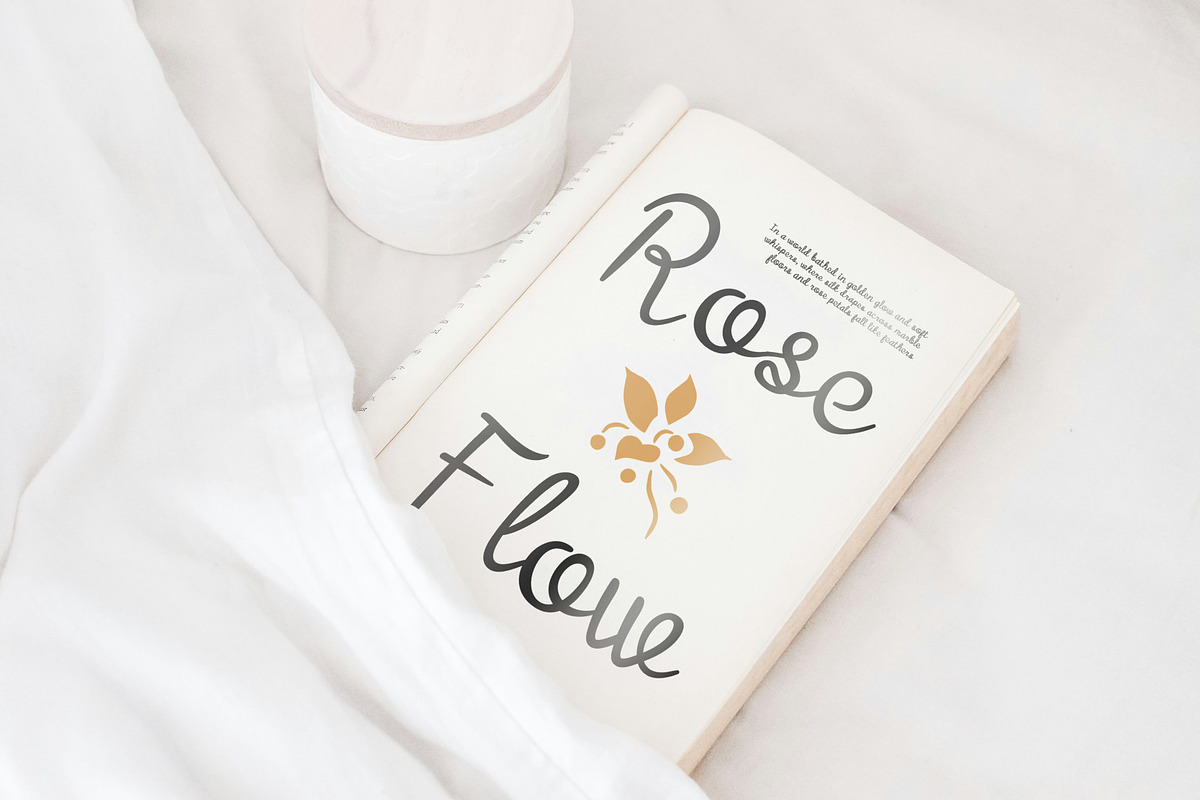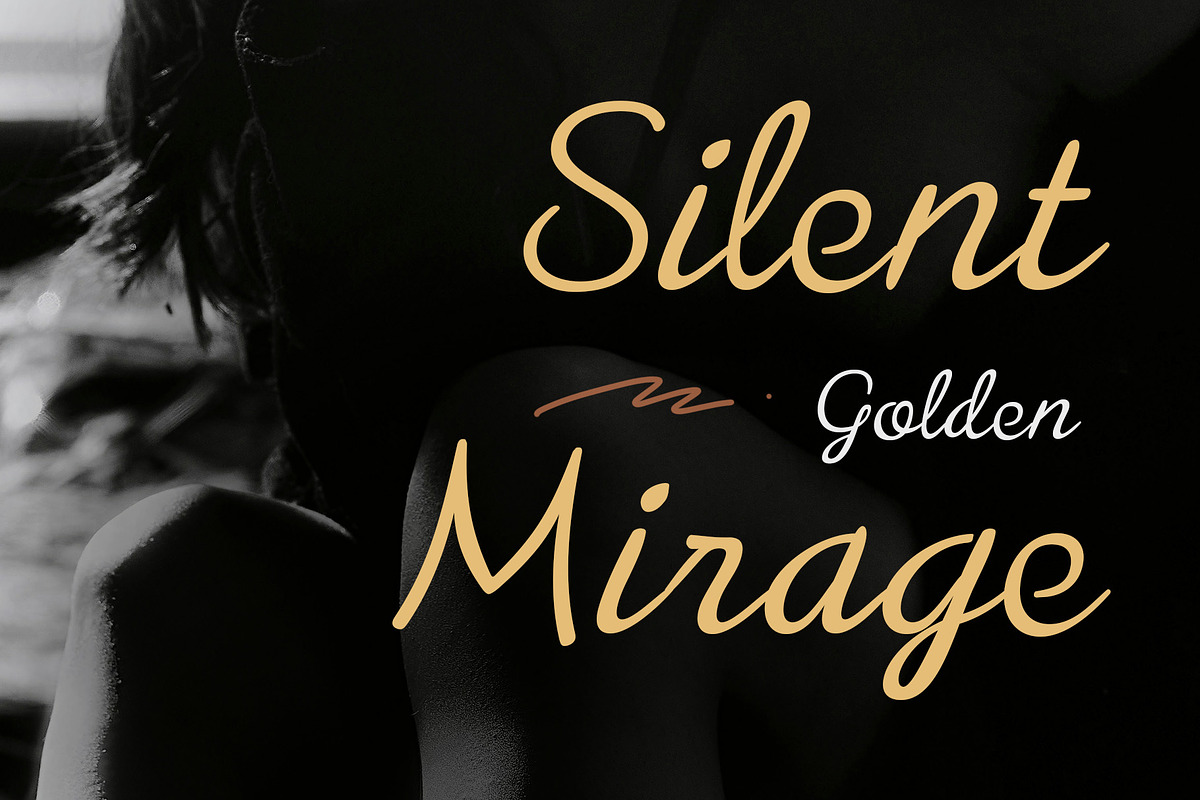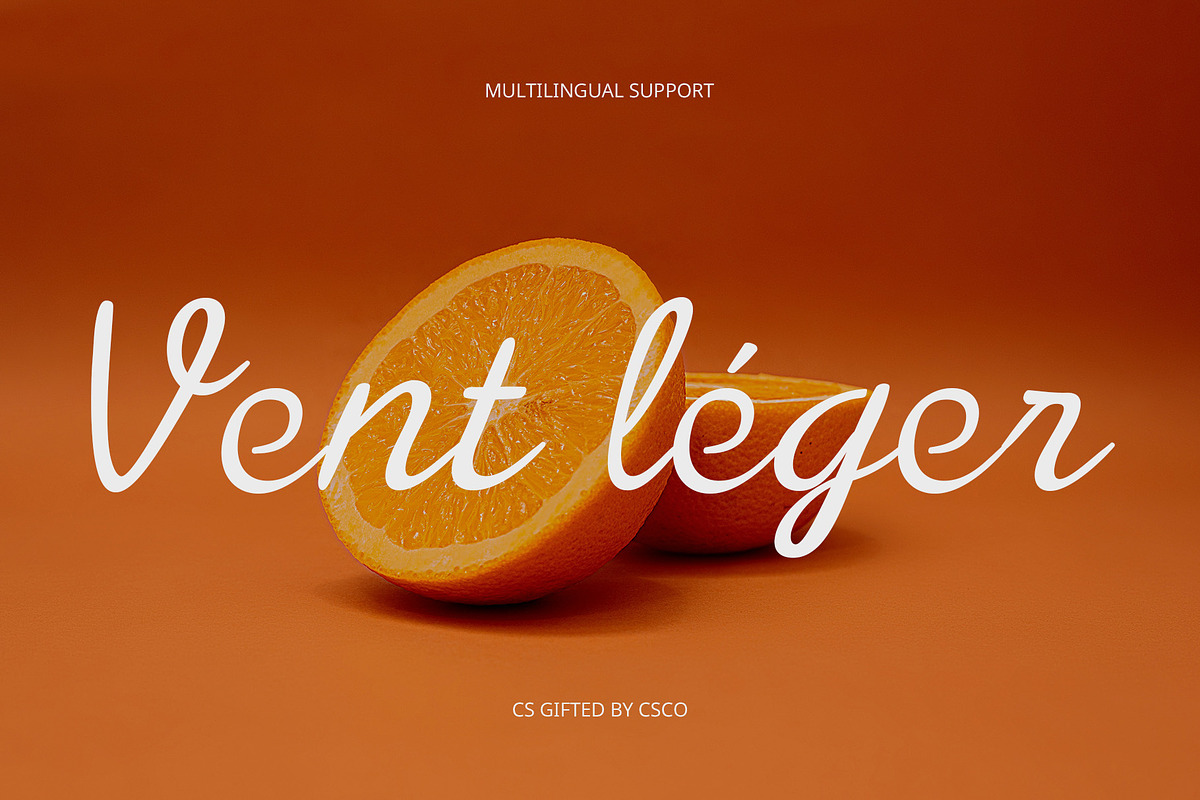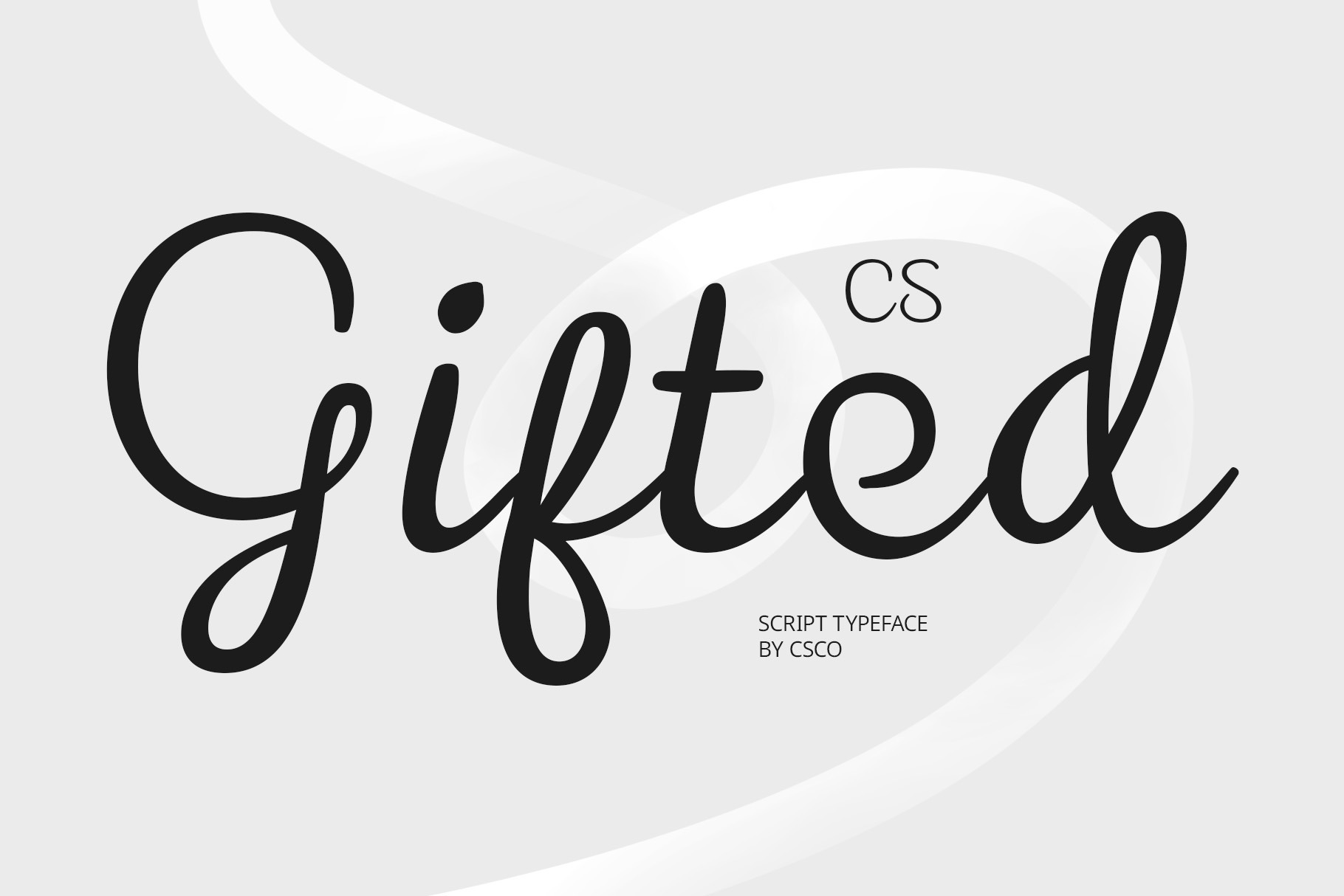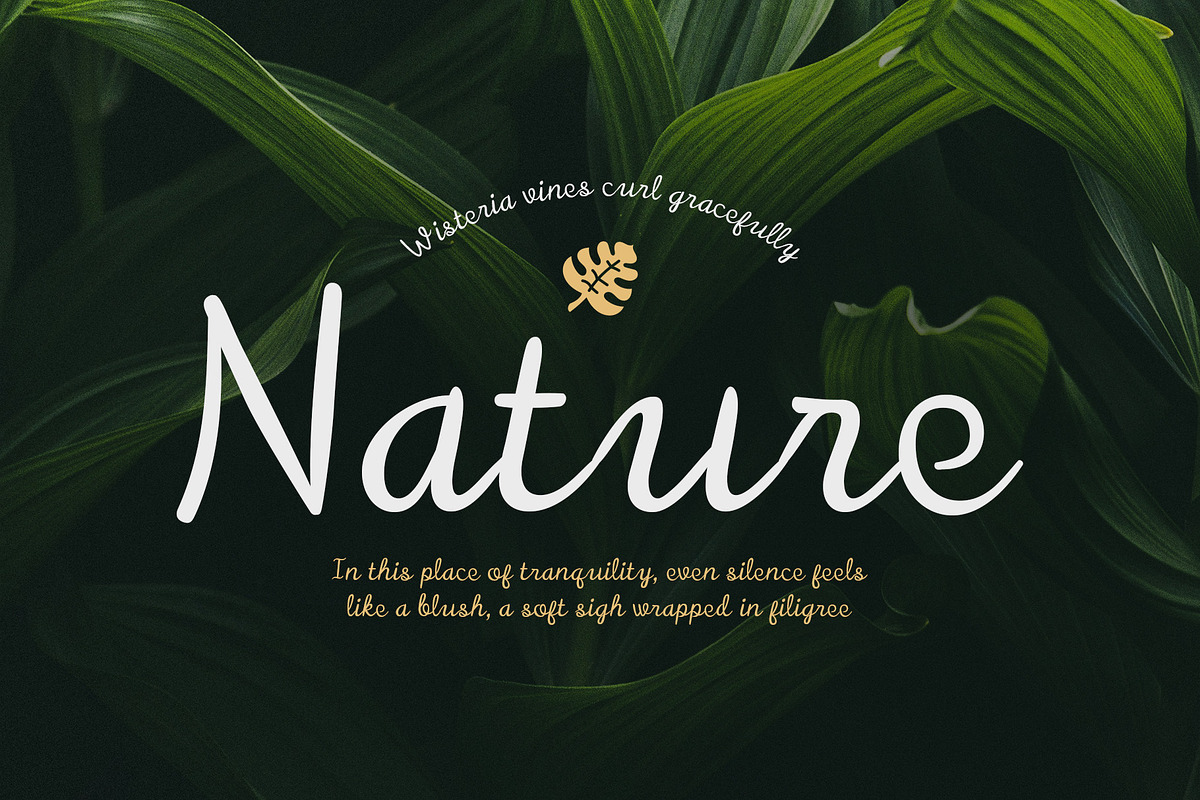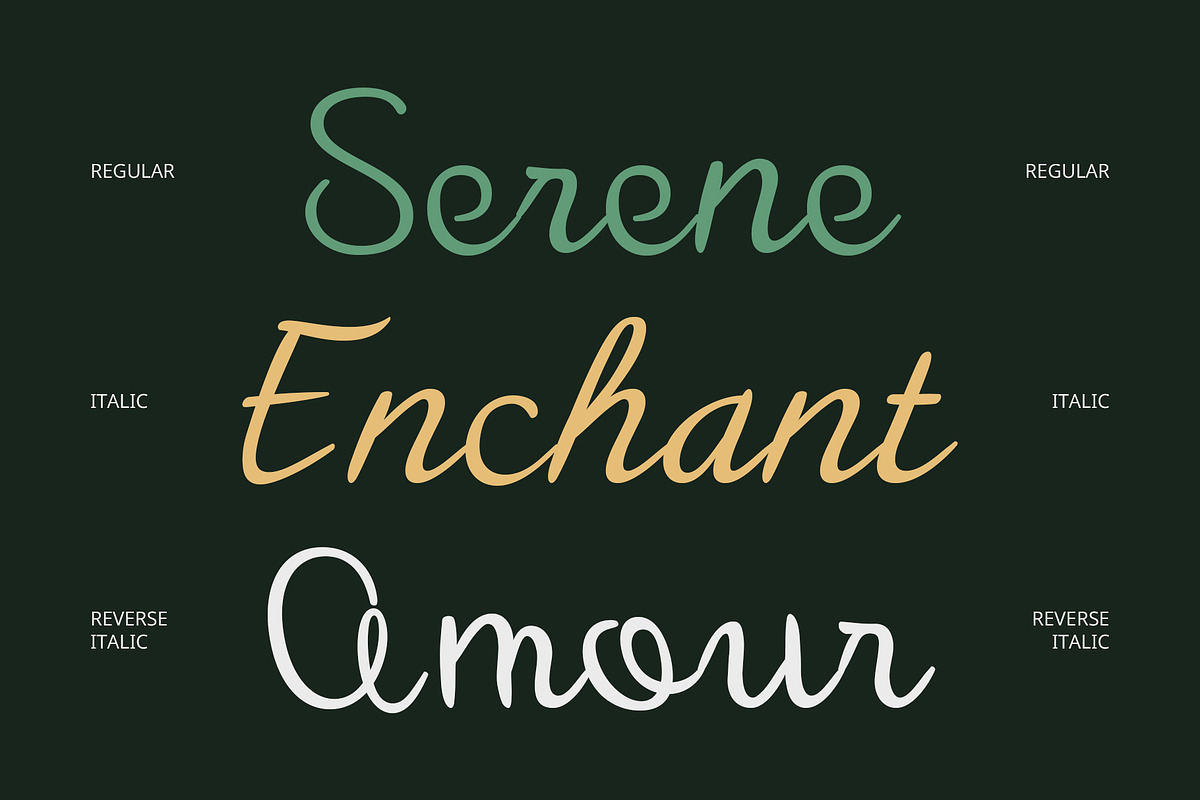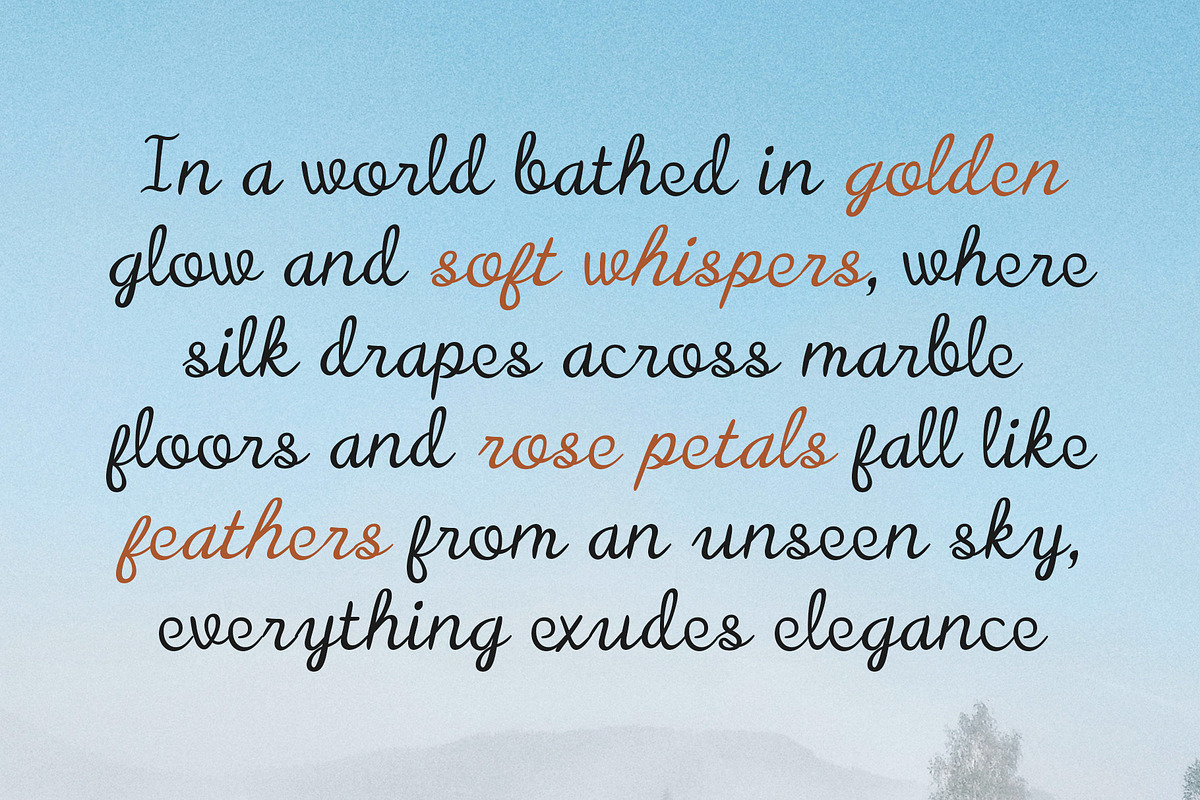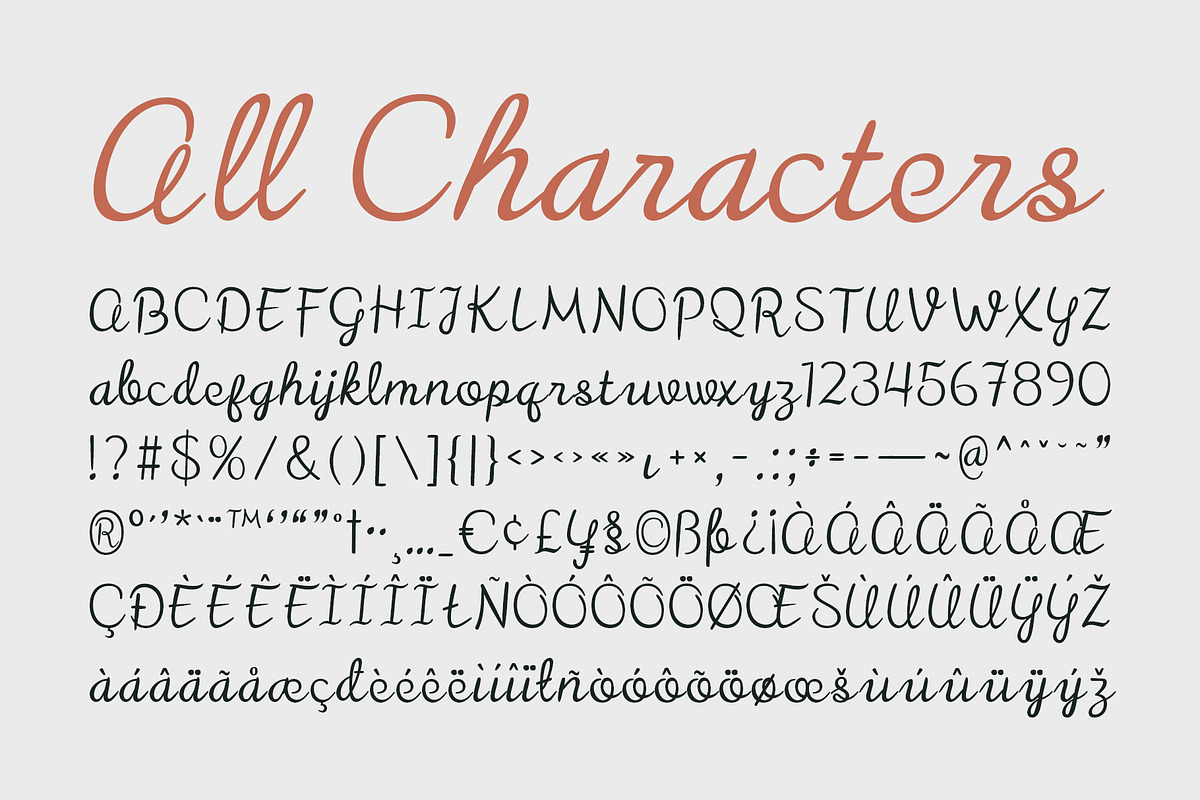
CS Gifted – Script Font
CS Gifted – A Graceful and Modern Script Font
Minimalist Flow with a Personal Touch CS Gifted is a modern script font that blends clean, minimalist cursive forms with the charm of natural handwriting. Its smooth strokes and fluid motion create a sense of refined elegance and effortless beauty, bringing warmth and sophistication to every letter.
Elegant, Charming, and Versatile Each character is designed with precise rhythm and gentle curves, offering a balance between professional polish and personal expression. It conveys a graceful, approachable feel, making it suitable for a variety of creative and commercial uses.
Perfect for Branding and Elegant Design Ideal for beauty branding, wedding stationery, lifestyle content, invitations, or social media graphics, CS Gifted adds a modern handwritten charm that’s both stylish and timeless. Its clean structure ensures readability, while its soft elegance enhances visual appeal.
Simplicity That Speaks Emotion CS Gifted brings a delicate emotional quality to modern script typography—perfect for designers who want to create designs that feel authentic, inviting, and beautifully crafted. Whether you’re designing for a romantic occasion or a high-end lifestyle brand, CS Gifted offers a perfect blend of clean design and expressive form. It’s ideal for projects that demand a modern, elegant script font that feels both intimate and professionally crafted, leaving a lasting impression of grace and sincerity.
- CS Gifted Regular
- CS Gifted Italic
- CS Gifted Reverse Italic